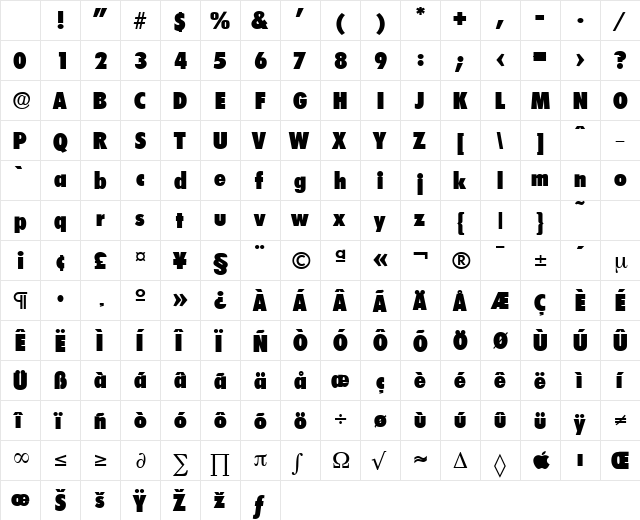
Design Context for LimerickCond-Serial-Heavy
LimerickCond-Serial-Heavy is a composed and adaptable typeface that performs quietly and consistently across a wide range of design contexts. Its narrow stance lets it pack a punch even in space-constrained designs.
Pro Tip: Use LimerickCond-Serial-Heavy in both headline and body roles to test its range before committing to a single application.